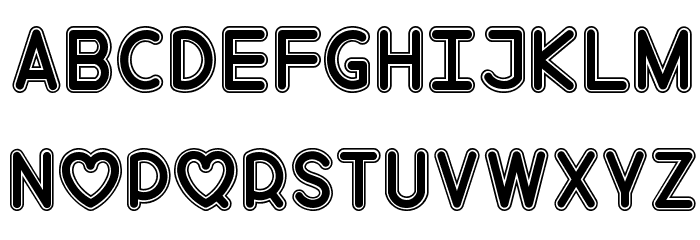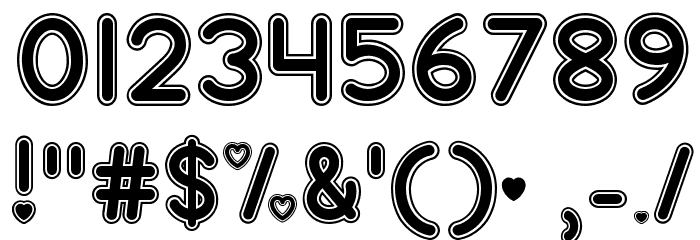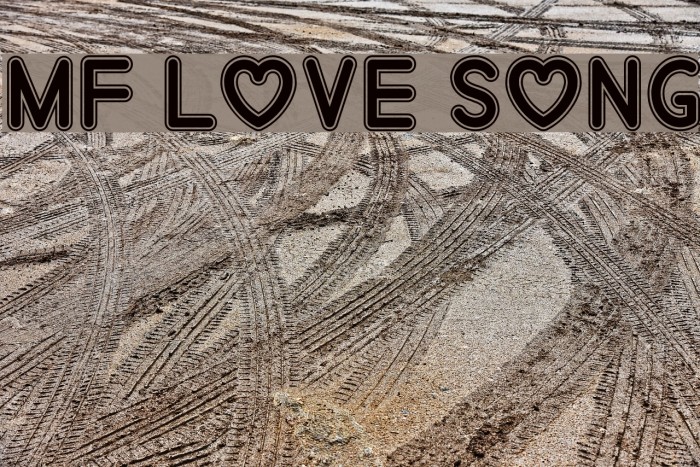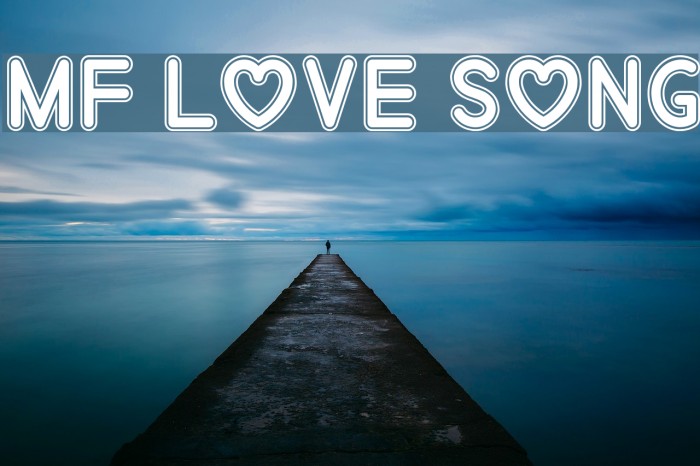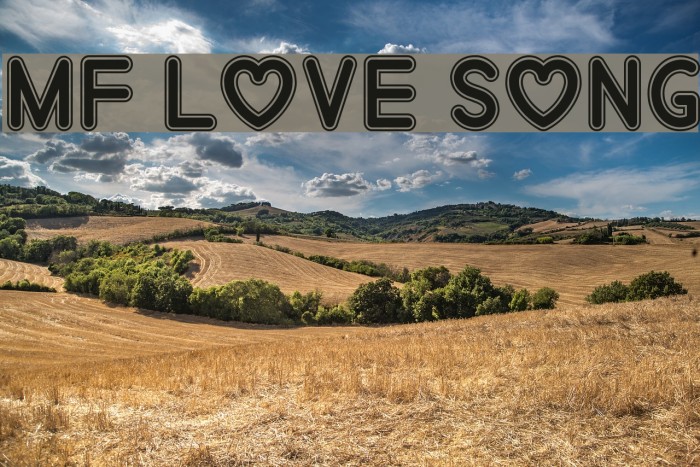
Mf Love Song Font
This playful and decorative font features a bold, outlined style with a unique twist. Each character is surrounded by a thick border, creating a striking contrast between the interior and exterior. The font includes heart-shaped elements integrated into certain letters and symbols, adding a whimsical and romantic touch. The uppercase and lowercase letters maintain a consistent style, with rounded edges and a uniform thickness. The numerals and special characters are designed to match the overall aesthetic, ensuring a cohesive look across all text. This font is perfect for projects that require a fun and lighthearted feel, such as greeting cards, wedding invitations, or playful branding.
A bold, outlined decorative font with heart-shaped elements for a playful and romantic style.